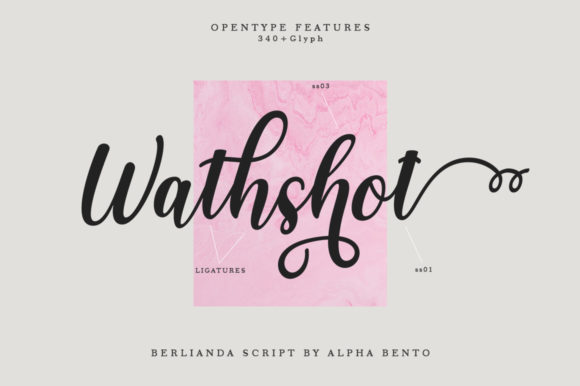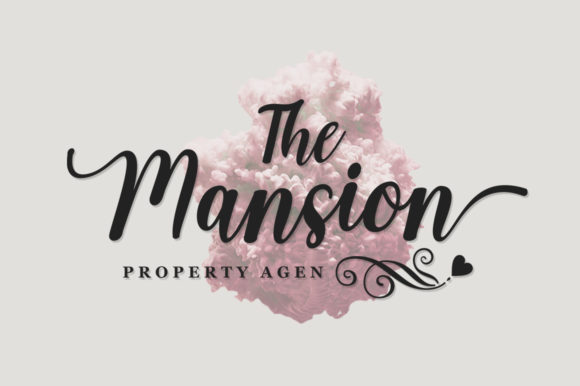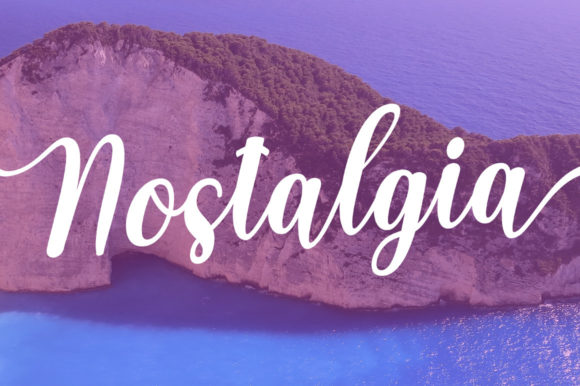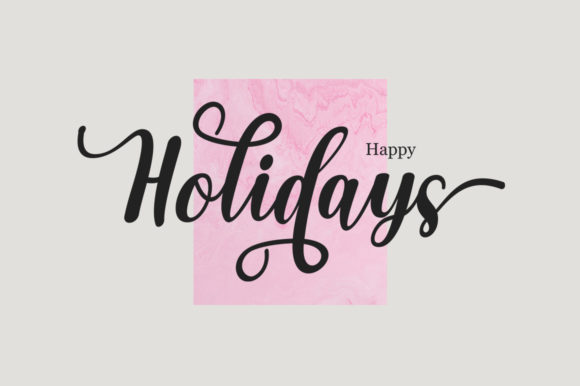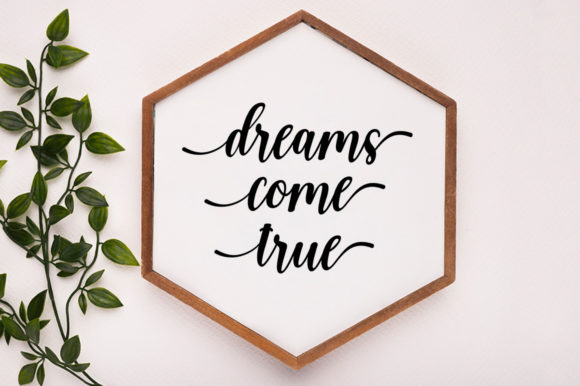
Berlianda Script Font
About Berlianda Script Font
“Berlianda Script” is not just a font—it’s a superb expression of creativity and sophistication, designed to elevate your work with its elegant and fluid lines. Perfect for a diverse range of applications, this handwritten font adds a touch of charm and distinction to product packaging, branding projects, magazine covers, social media posts, weddings, and more.
With its graceful and curvaceous lines, “Berlianda Script” exudes a sense of beauty and refinement that instantly captivates the eye. Whether used as the focal point of your design or to complement other elements, this font adds a distinctive flair that sets your work apart from the rest.
Moreover, “Berlianda Script” is PUA encoded, ensuring easy access to all of its glyphs and swashes. This means you can effortlessly customize and embellish your designs with decorative elements, allowing for endless possibilities for creative expression.
In addition to its aesthetic appeal, “Berlianda Script” is highly versatile and practical. Its clean and legible letterforms ensure readability across various mediums and platforms, ensuring your message is effectively communicated to your audience.
Whether you’re creating a product label, designing a brand identity, or crafting a social media post, “Berlianda Script” offers the flexibility and versatility to bring your ideas to life. Its timeless elegance and effortless charm make it the perfect choice for any project where you want to make a statement and leave a lasting impression.
In conclusion, “Berlianda Script” is more than just a font—it’s a versatile and powerful tool that empowers designers to unleash their creativity and make their work stand out. With its elegant lines and PUA encoding, this font makes it easy to create stunning designs that resonate with your audience and leave a lasting impact.